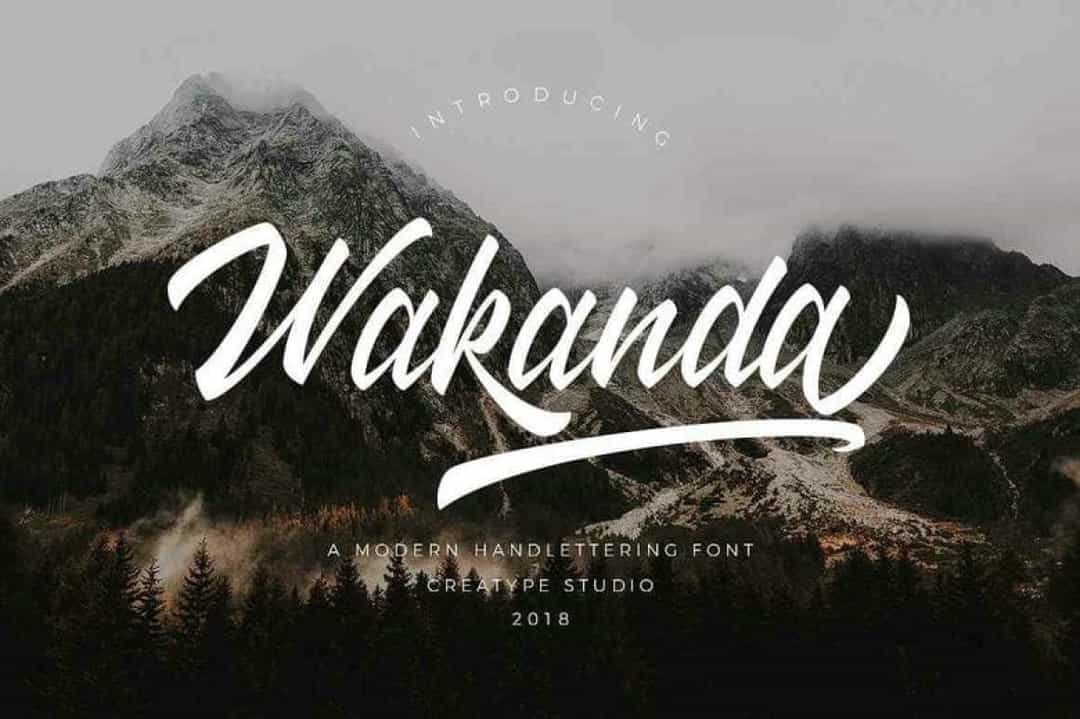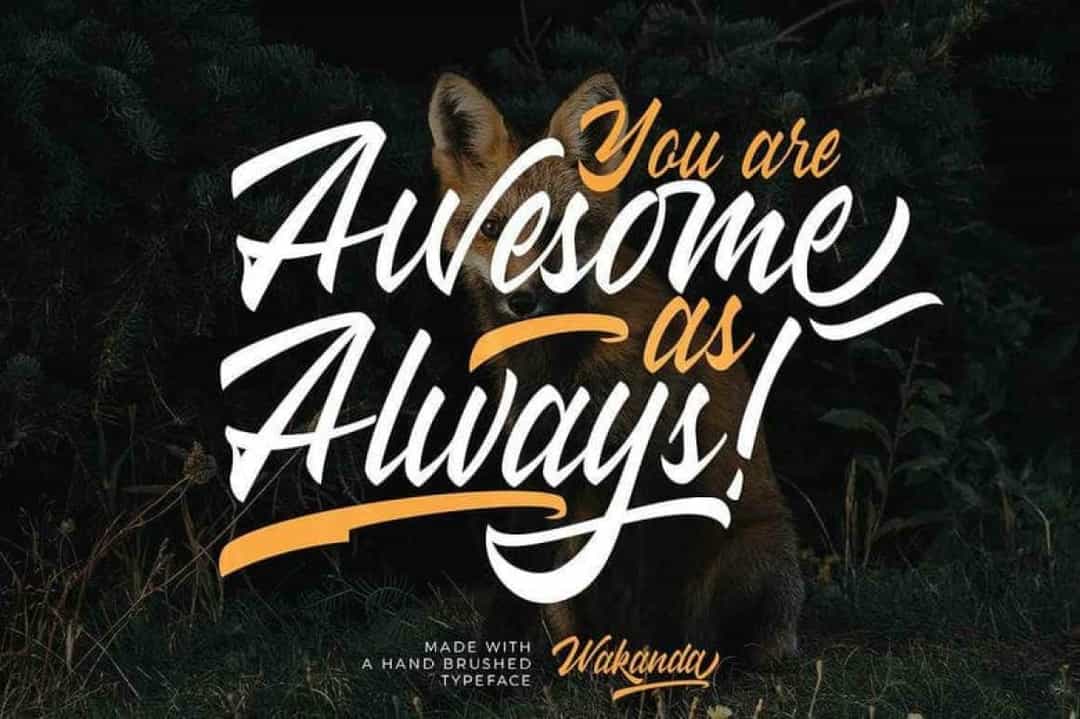
Discover Wakanda Script Font, part of the Brush collection—a versatile and unique font perfect for adding a personal touch to your projects. Download it for free and enjoy crafting designs with style, from invitations to social media posts. This font is available exclusively for personal use, giving you the freedom to create without limits. Unlock your creativity with Wakanda Script Font today!
Well everyone, it seems that we save the best for last. It is our pleasure to present to you from Creatype Studio Co., Wakanda! drops mic! Wakanda is unique and modern handletter script. contains 351 glyphs and alternate character contain with opentype features. Stylistic alternates, Swash Alternates, Ligature Created feel good combination.